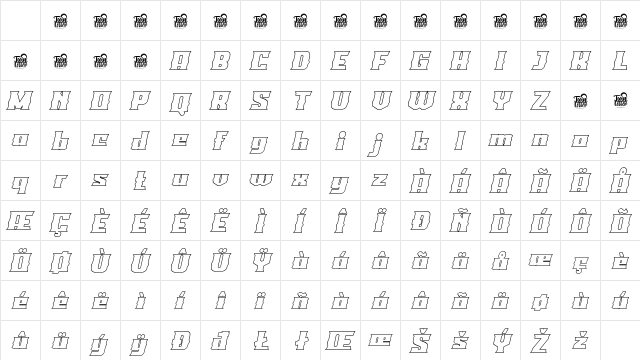
Complete LAROF Outline Slant Regular glyph index. Displaying only characters natively supported by LAROF Outline Slant Regular font.
LAROF Outline Slant is built around its visual character rather than neutral utility - its distinctive forms are designed to make an impression at display sizes.
Font Pairing: Pair with a clean neutral sans-serif for body copy to let LAROF Outline Slant's character lead without overwhelming the composition.
Pro Tip: Use LAROF Outline Slant exclusively at display sizes - it was designed to be seen, not read at length. Let a neutral companion handle body copy.